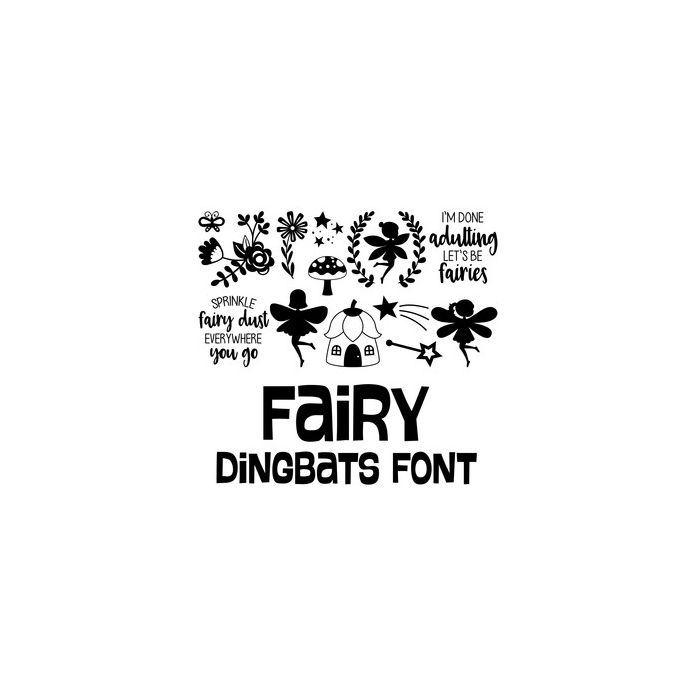
This cute dingbat font includes 26 fairy icons that you can type + cut. Make adorable fairy themed projects with this fun font. For ideas and inspiration visit www.loriwhitlock.com and www.facebook.com/lori.whitlock.studio. For a video tutoriarial on how to use Lori Whitlock's dingbat fonts visit https://www.youtube.com/watch?v=TLIqETMzHdo